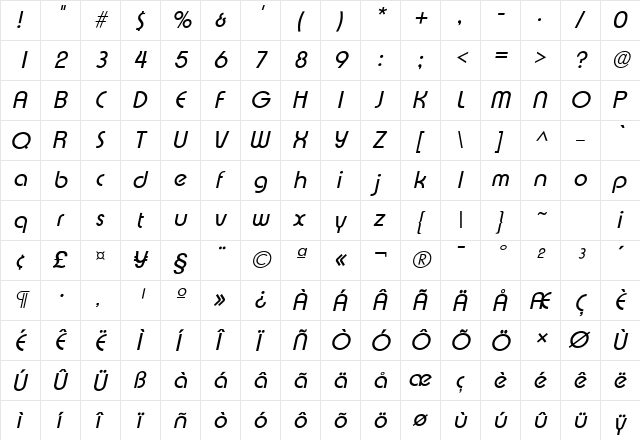
Xpress SF Italic
Design Context for Xpress SF Typeface
Xpress SF is a composed and adaptable typeface that performs quietly and consistently across a wide range of design contexts. The dynamic lean of this cut emphasises speed and emphasis in any layout.
Pro Tip: Try Xpress SF for annotation and caption copy alongside an upright companion — the contrast in angle creates a dynamic but ordered typographic system.